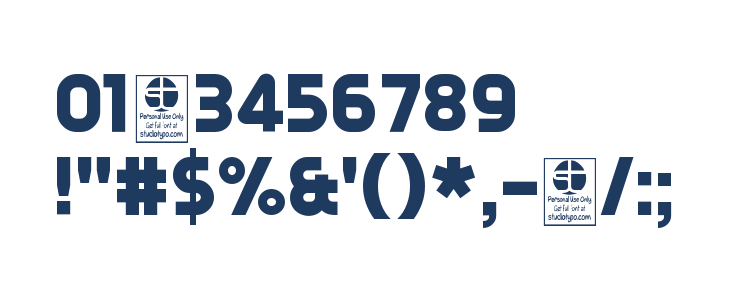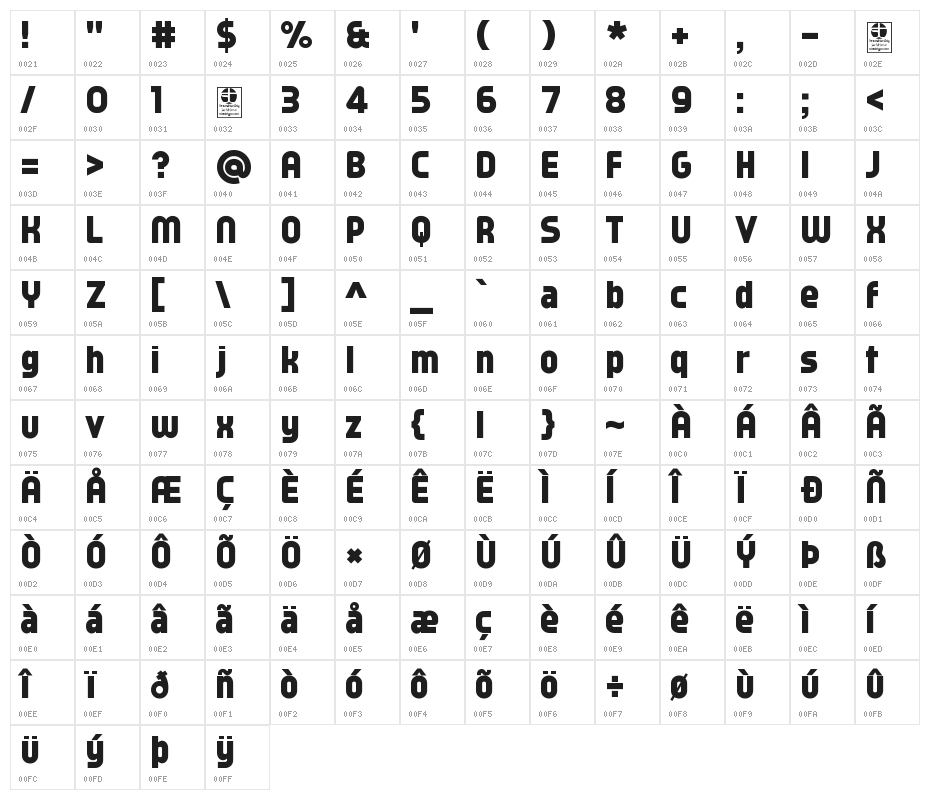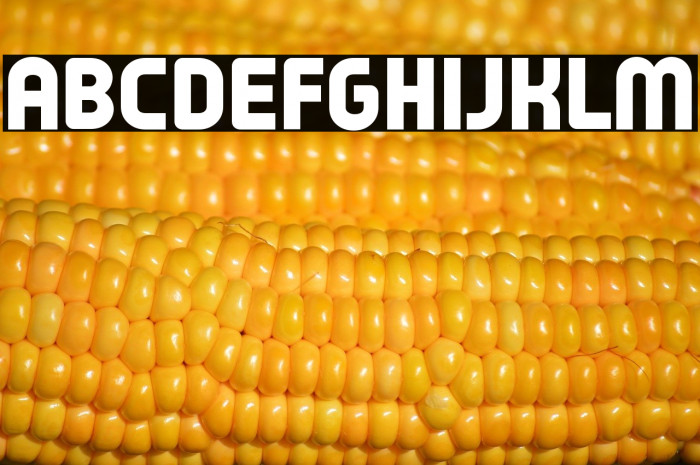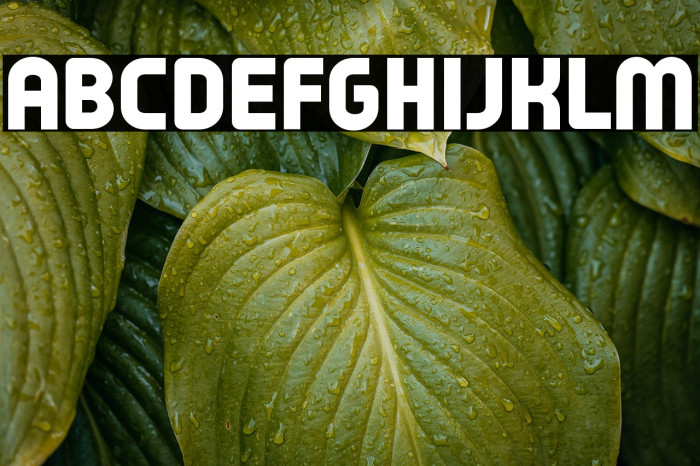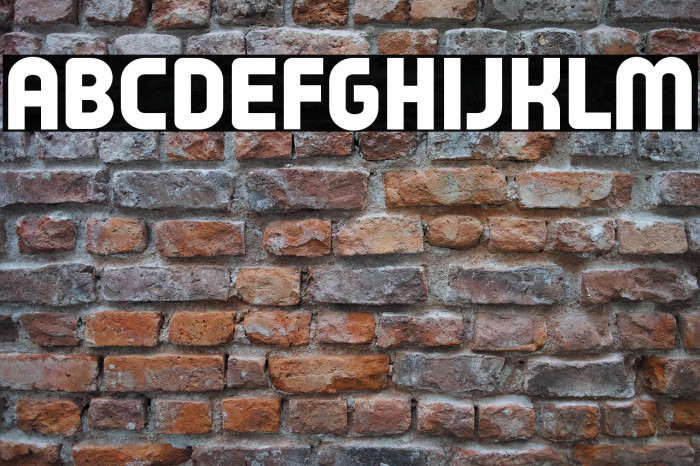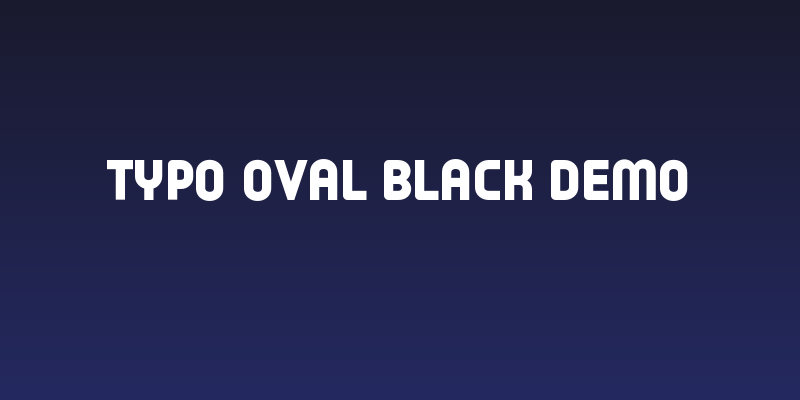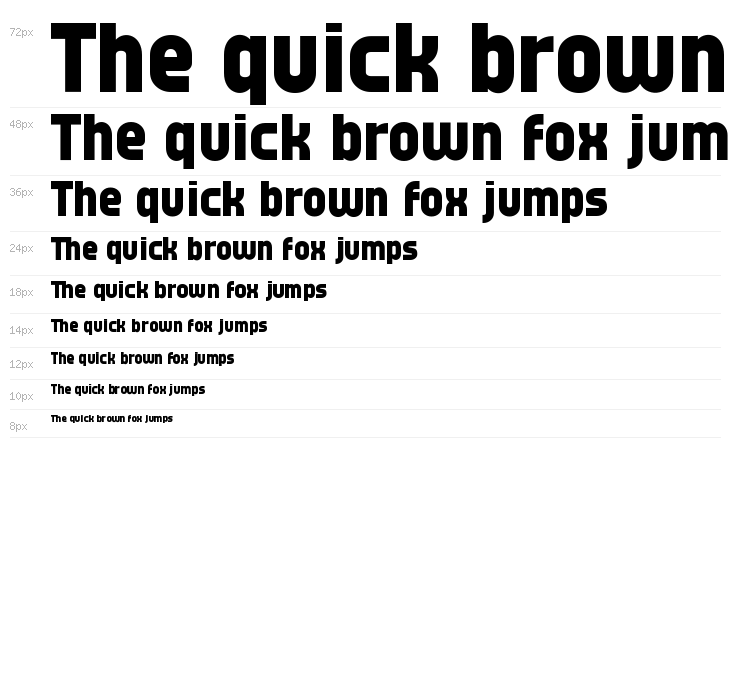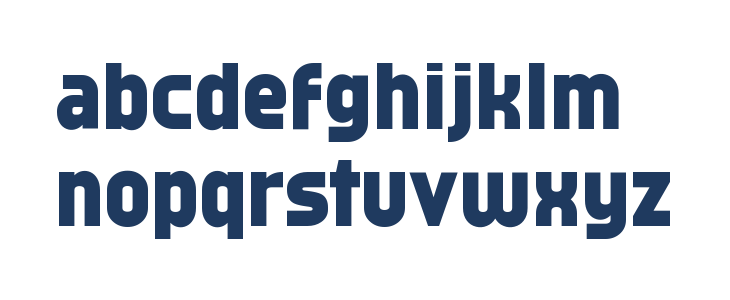
Typo Oval Black Demo Font
Typo Oval Black Demo Description
This font features a bold and rounded design with a modern and clean aesthetic. The characters are uniformly thick, providing a strong visual impact. The uppercase and lowercase letters maintain a consistent style, with rounded edges that soften the overall appearance. The numerals and special characters are designed to match the boldness and curvature of the alphabet, ensuring a cohesive look across all text. This font is highly legible and versatile, making it suitable for various design applications.